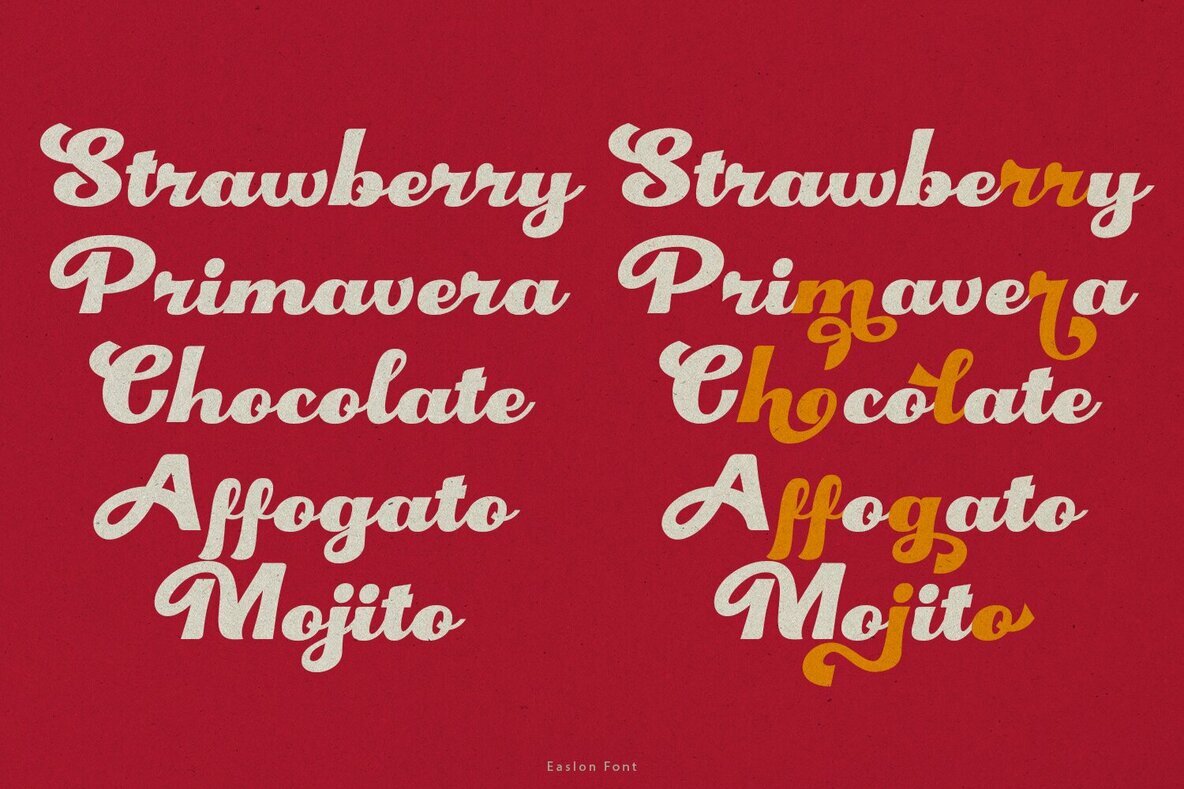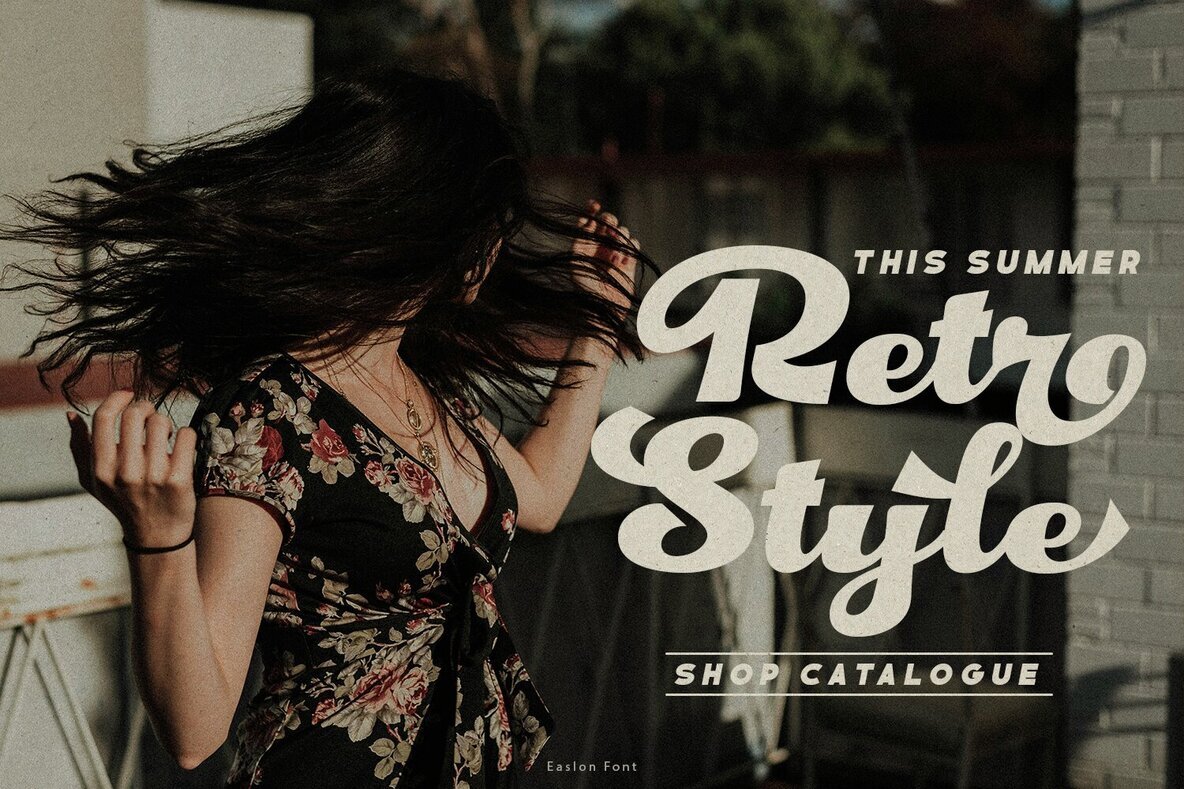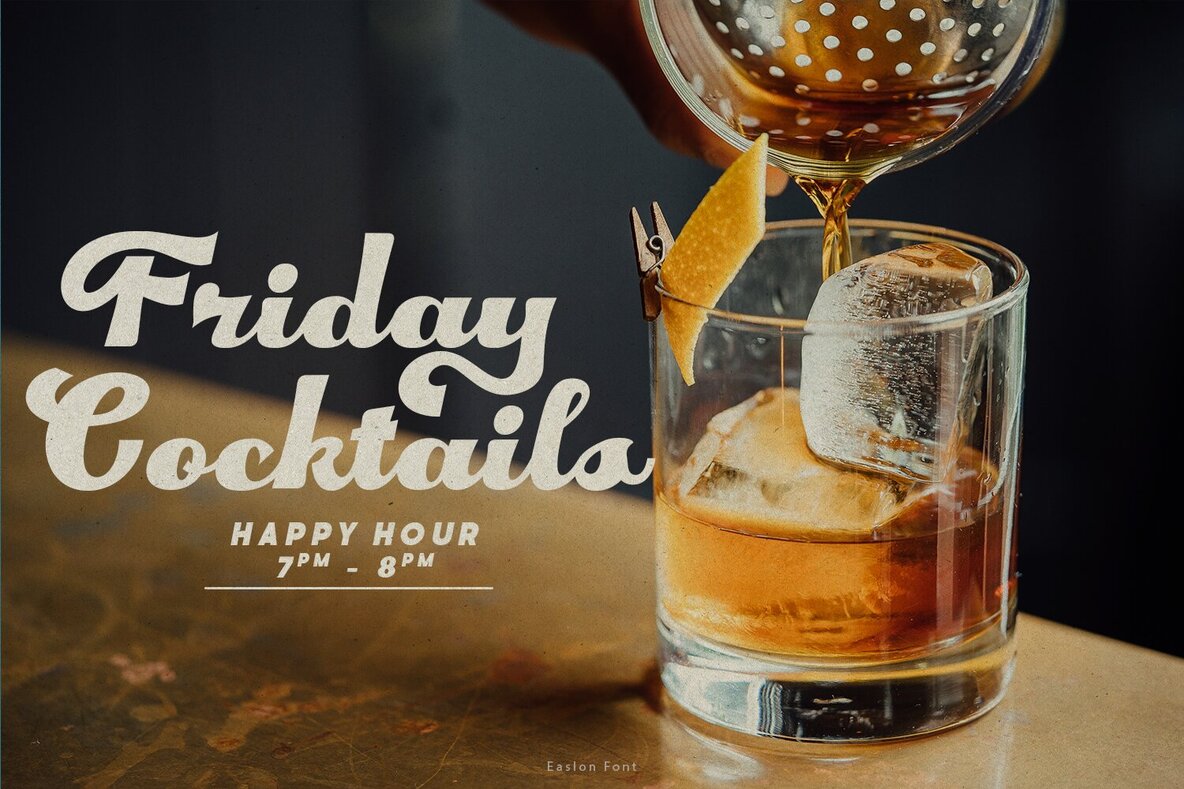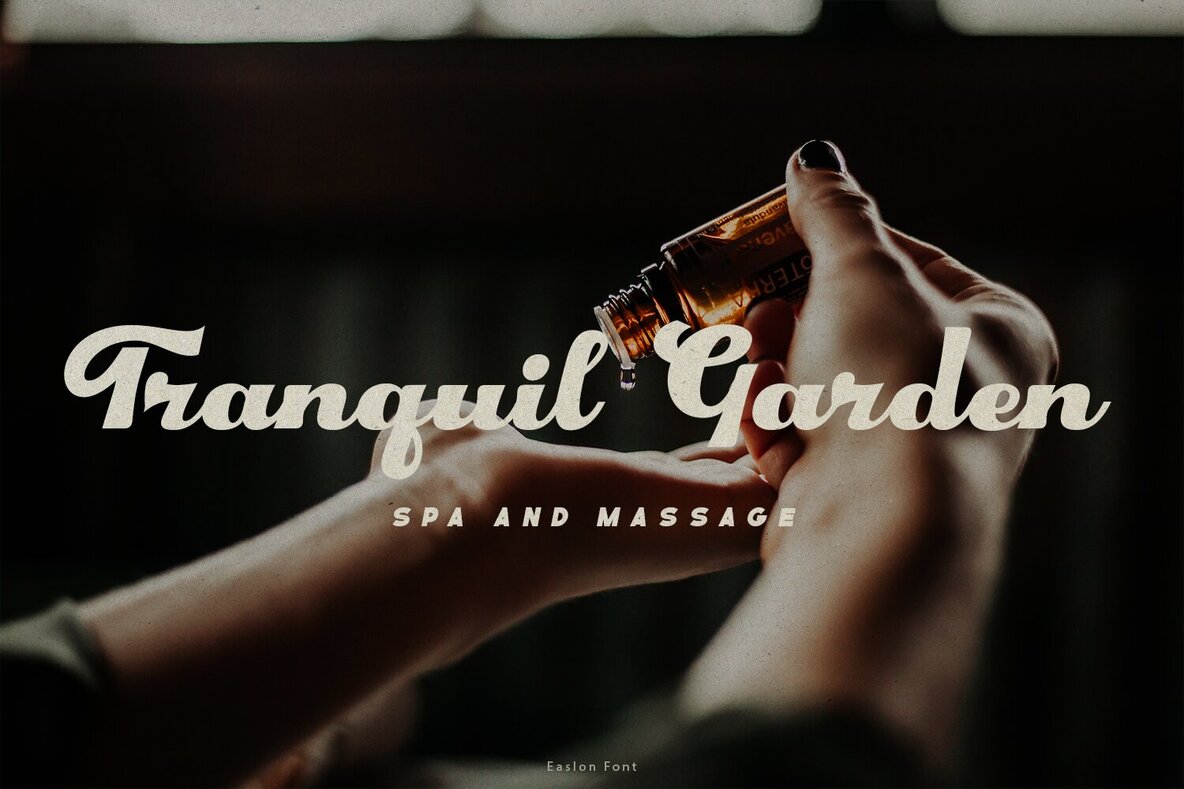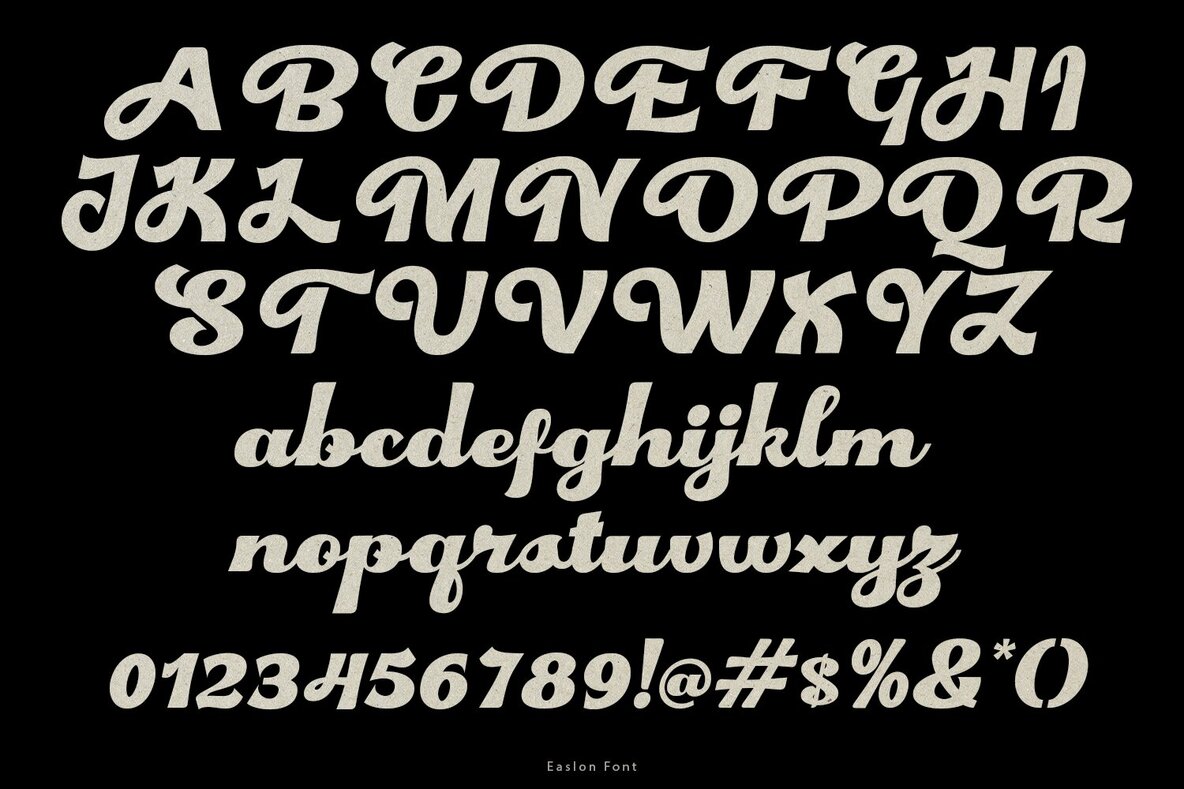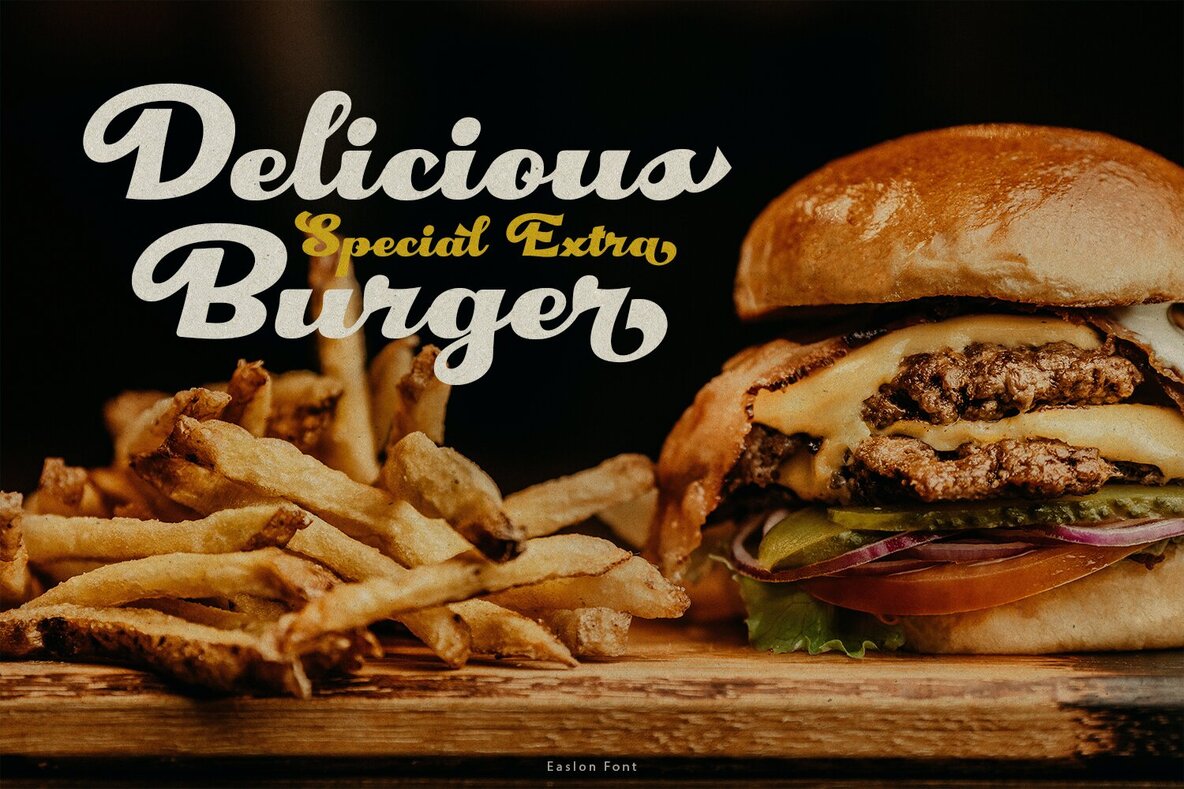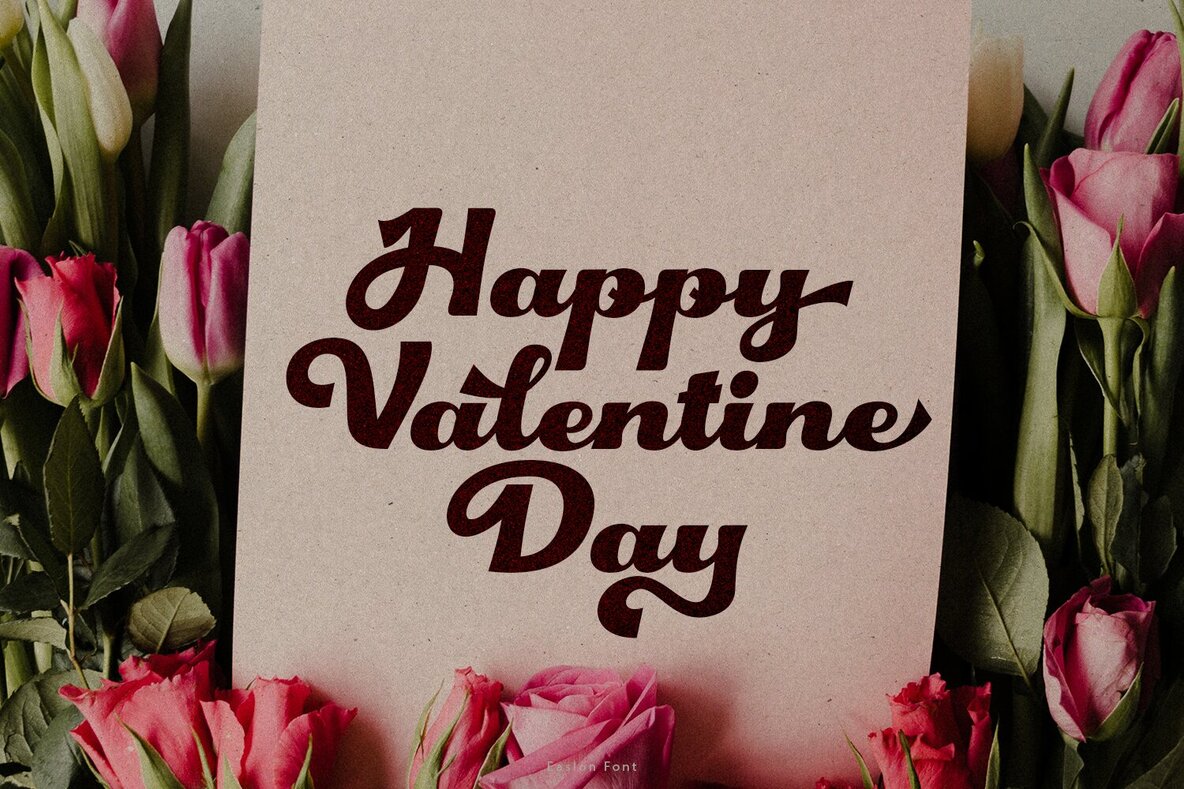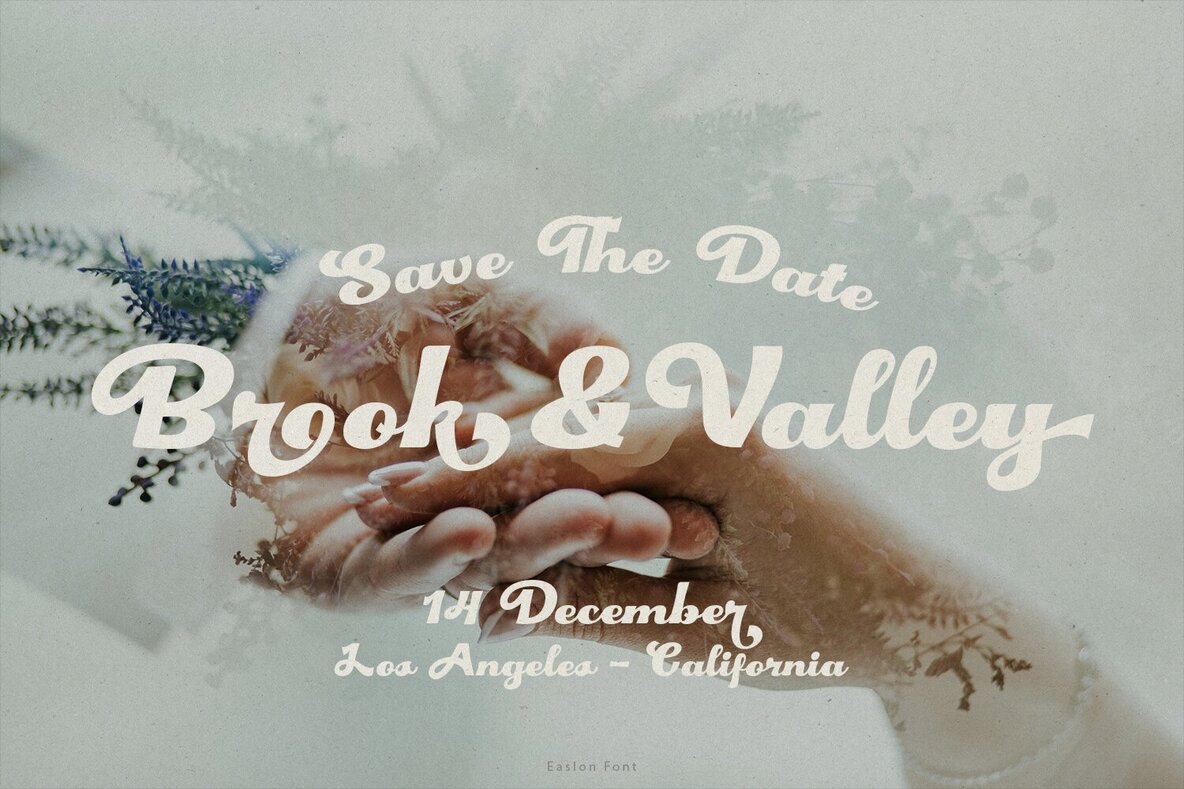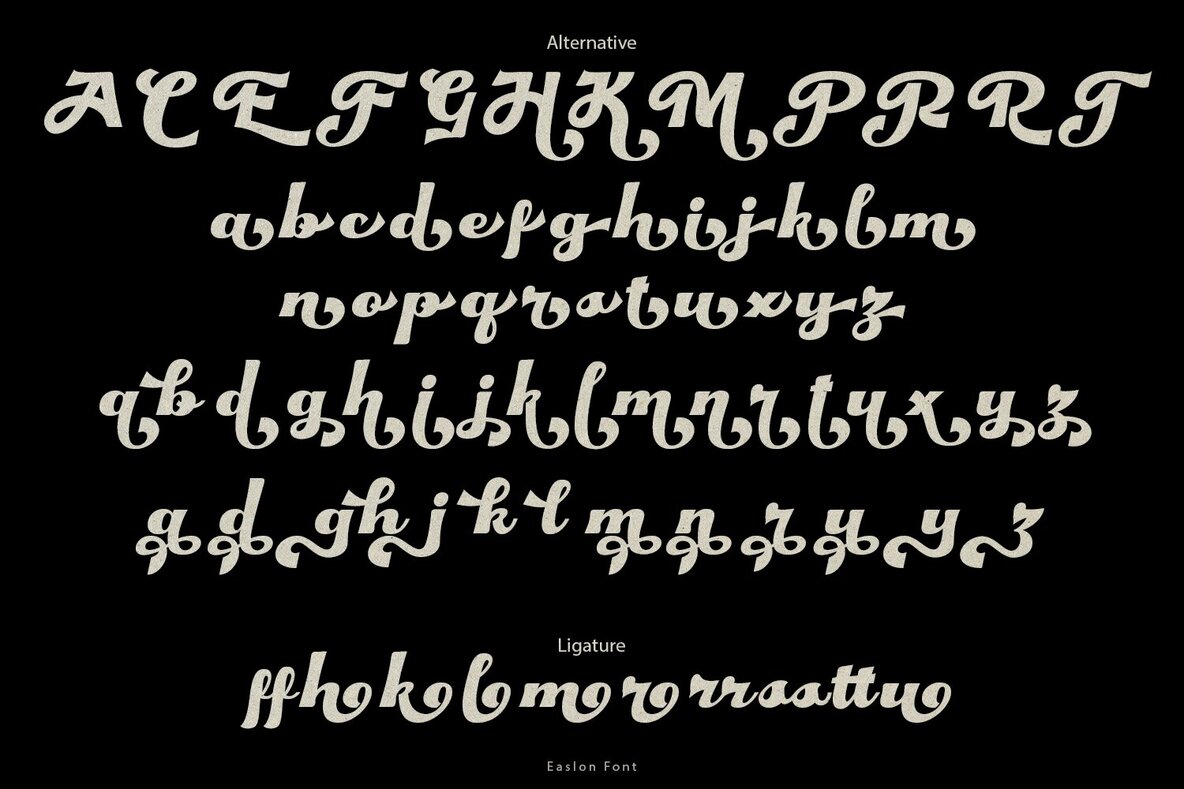
Easlon Font
Easlon Regular
Easlon captures the essence of the 70s with its distinct retro style. Ideal for creating an engaging reading experience, this font offers the perfect blend of nostalgia and modernity. Utilize Easlon for branding projects, product packaging, invitations, quotes, headlines, labels, posters, logos, and more.Easlon: Retro Font with 70s Vibes